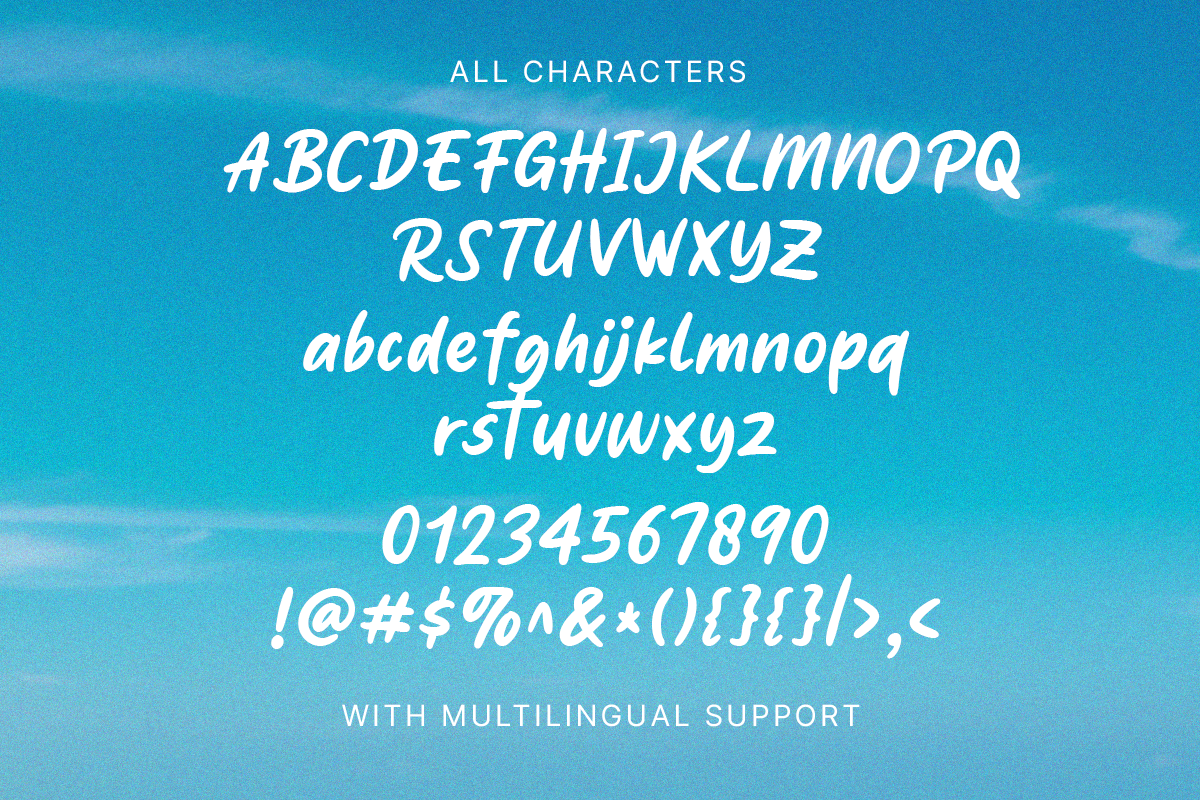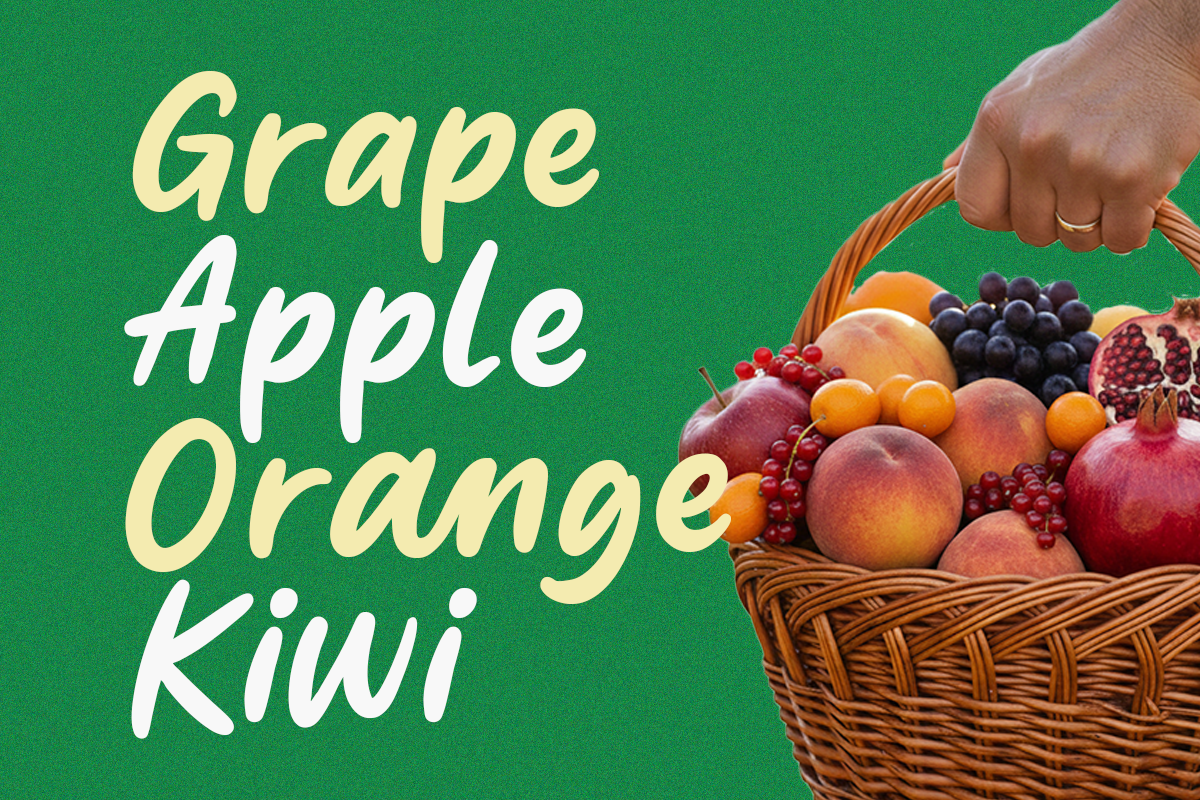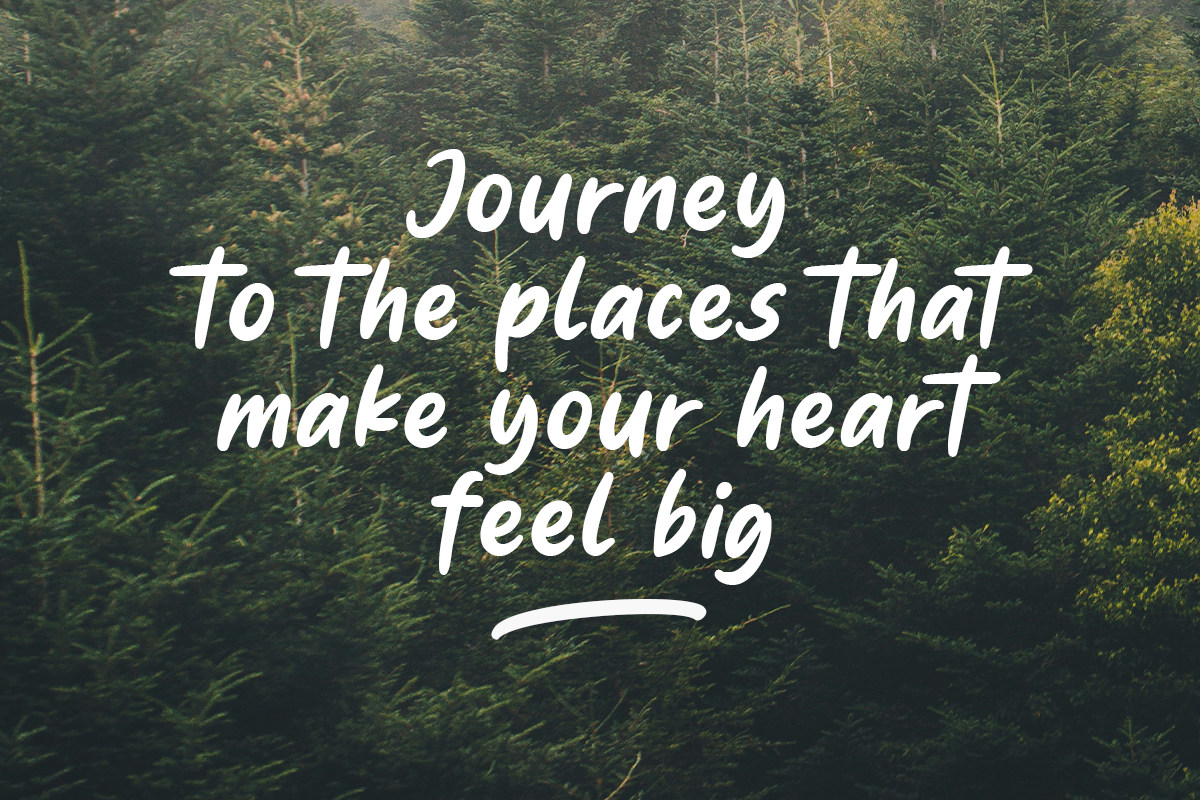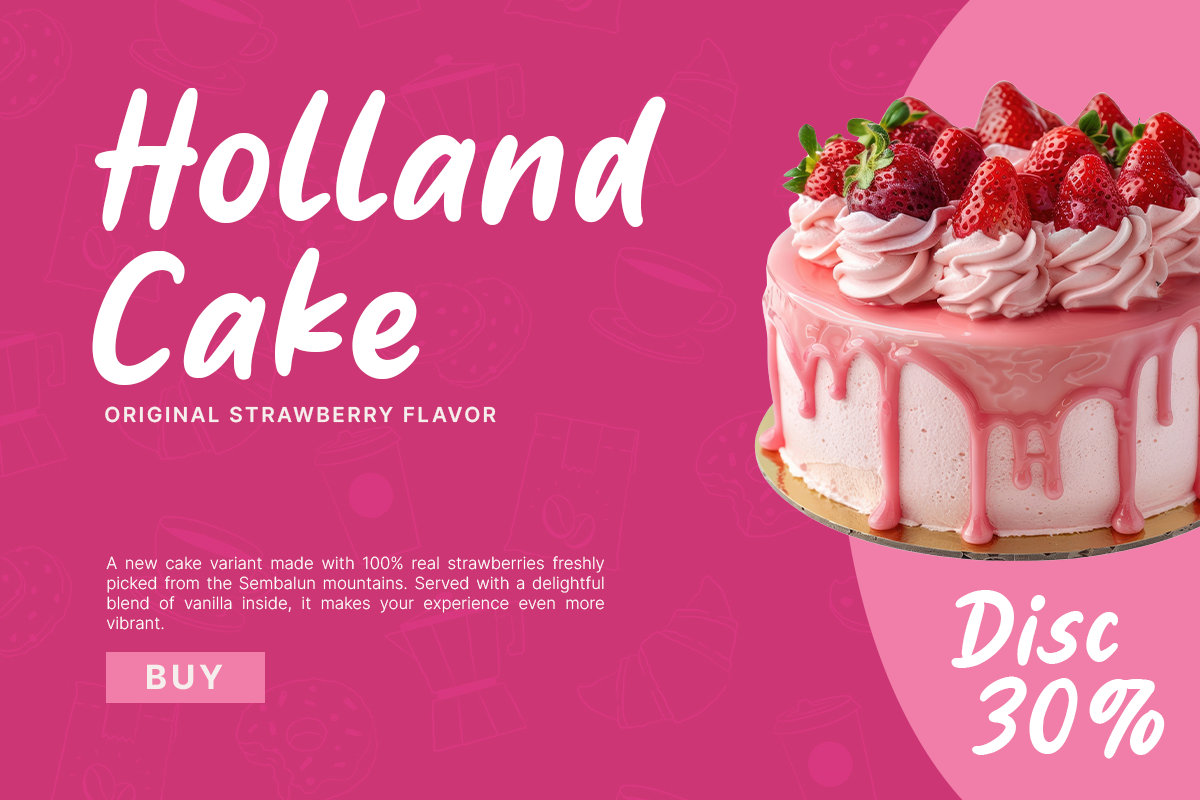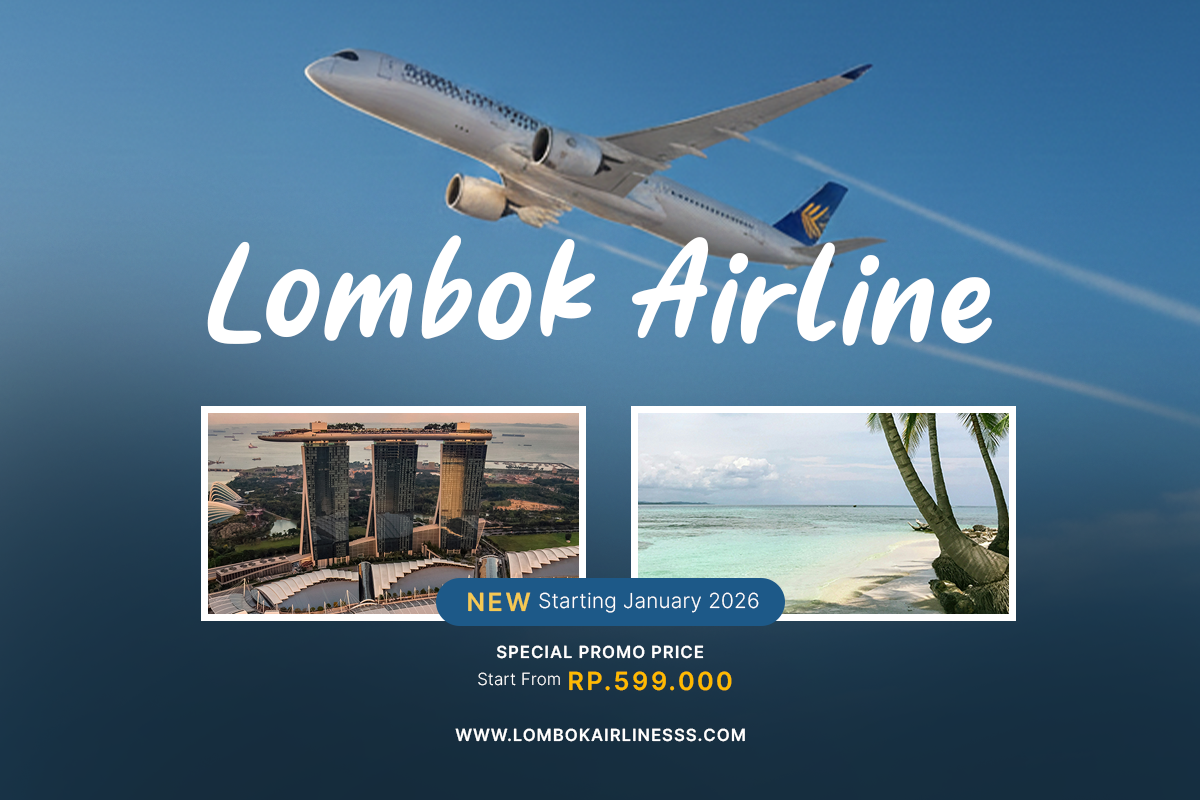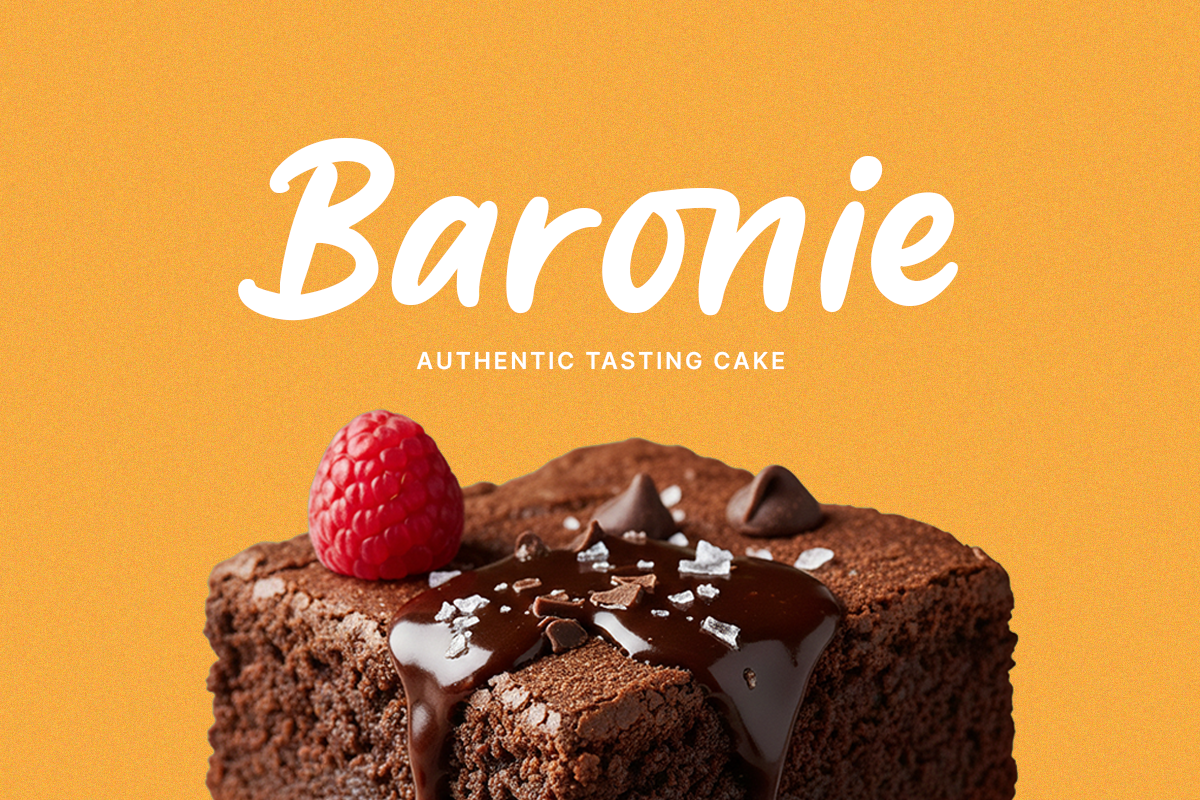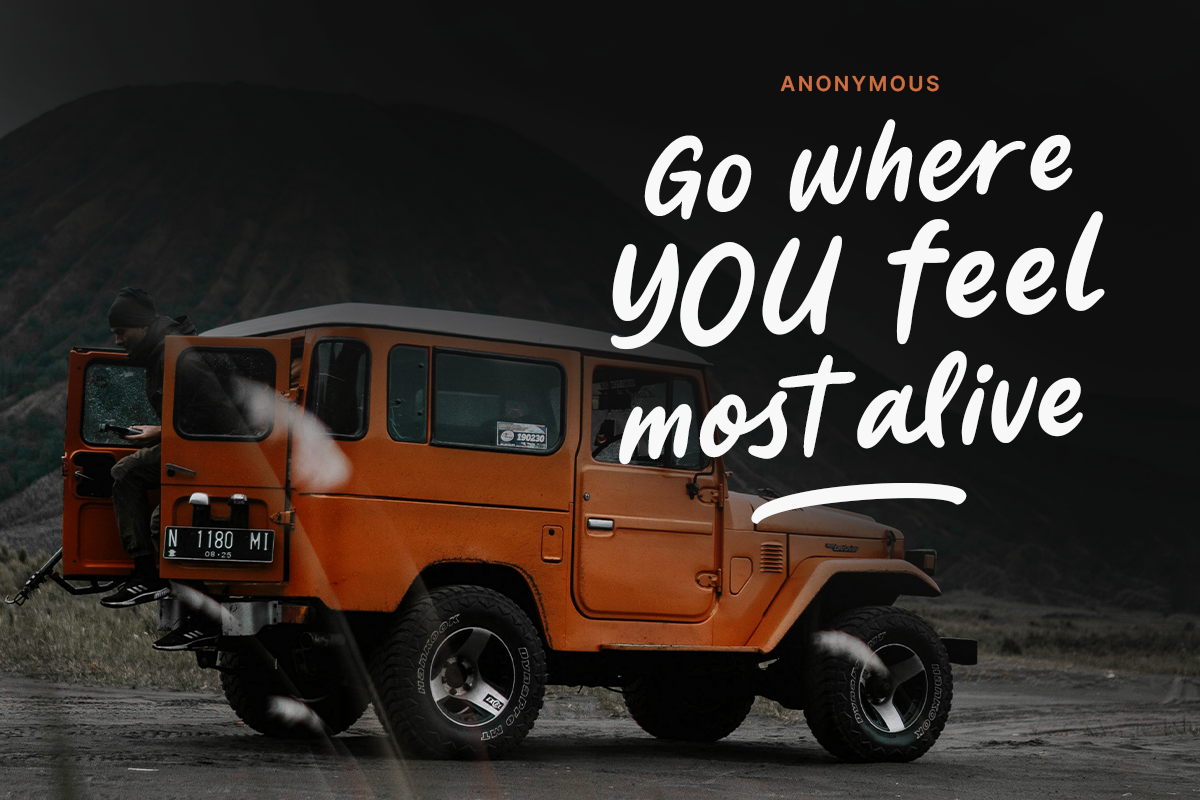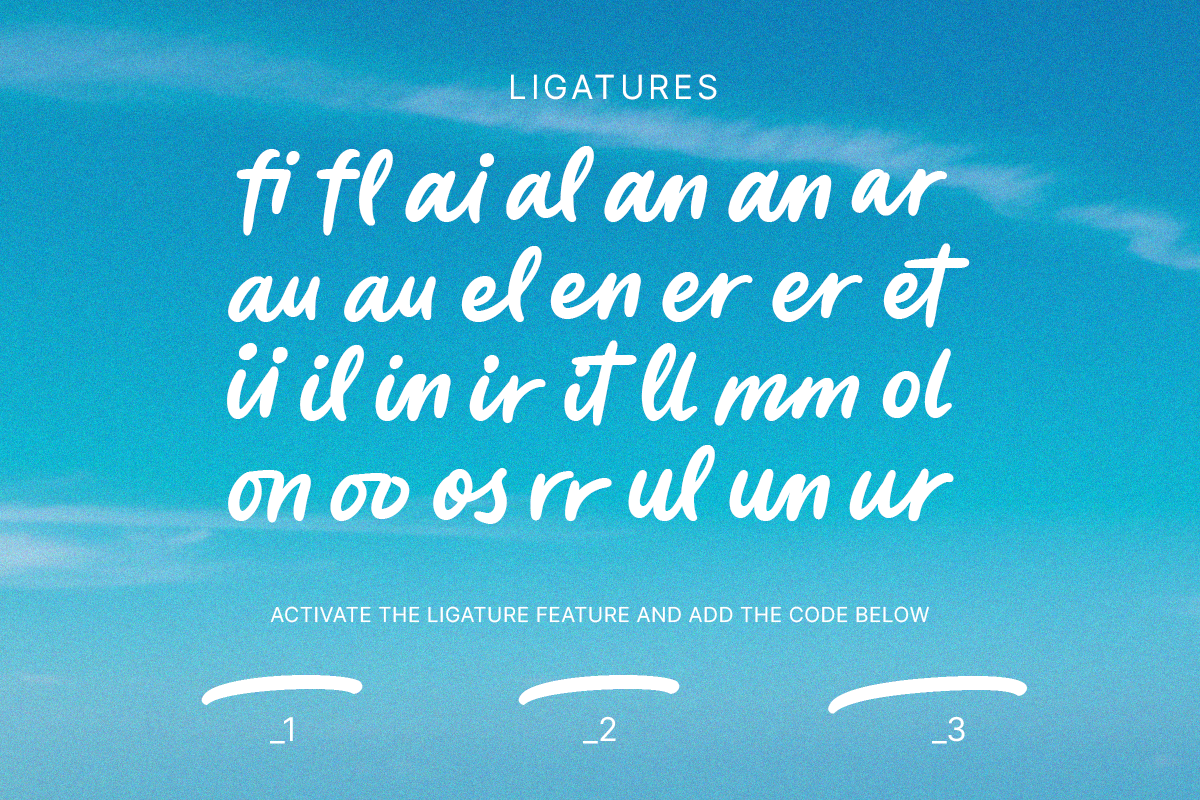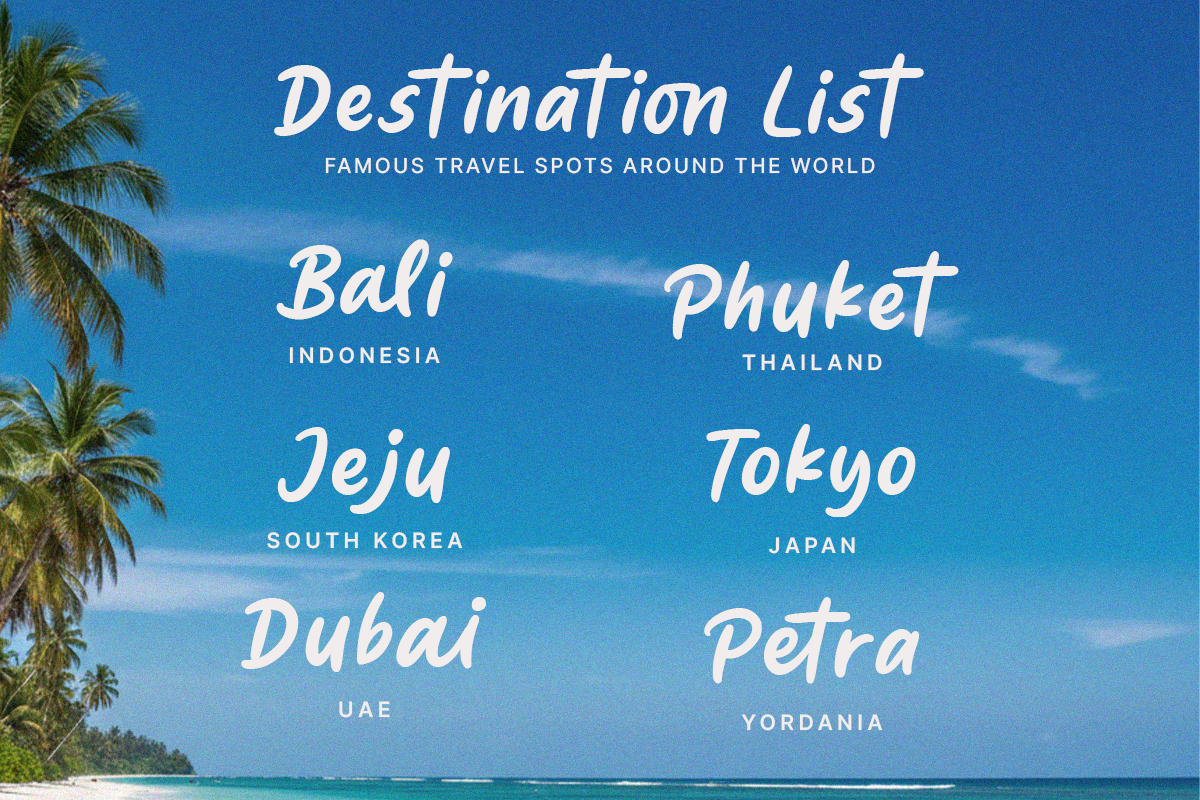
Maldives Holiday
Maldives Holiday is a bold handwritten display font that brings a fresh, relaxed, and modern look to any design. With clean handcrafted strokes and a friendly personality, this font delivers the perfect balance between casual charm and strong visual presence.
Its bold shape makes it highly readable and eye-catching, while its natural handwritten feel adds warmth and authenticity—without looking like a script. Perfect for brands and creators who want a confident yet approachable style.
Whether you're designing food and beverage packaging, travel content, social media posts, or summer-themed visuals, Maldives Holiday adds a breezy, uplifting mood that instantly enhances your layout.
Let your designs feel like a sunny escape.